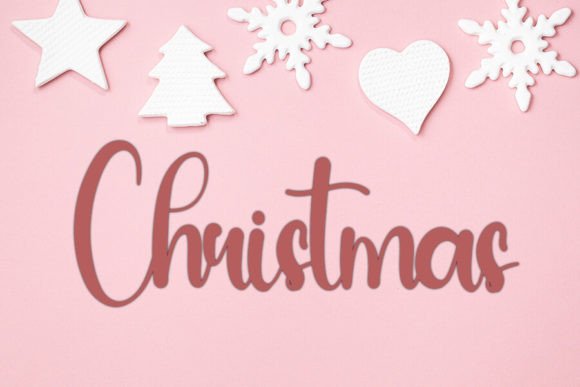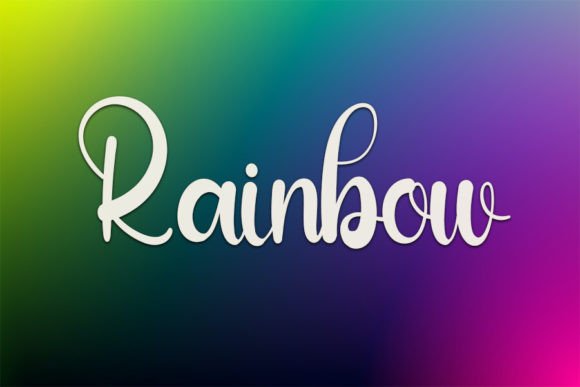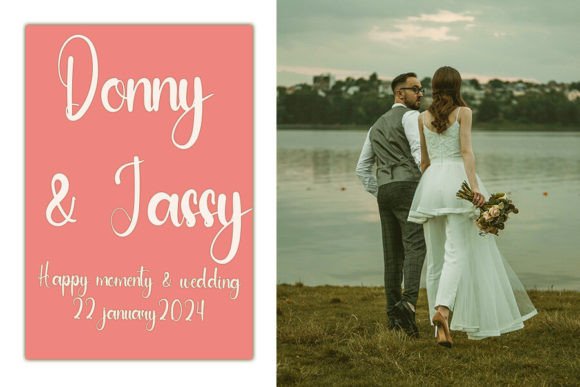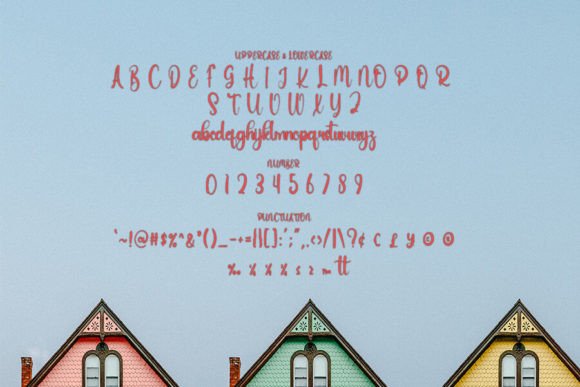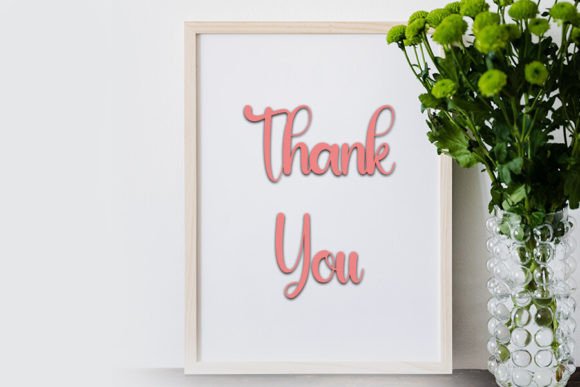
Introducing Contribution Font: Elevate Your Designs with Elegance
Are you on the hunt for a font that adds a touch of sophistication and elegance to your projects? Look no further than Contribution Font, a stunning handwritten font that is sure to capture your heart. With its unique and timeless style, Contribution Font is the perfect choice for designers and crafters looking to create spectacular designs that stand out from the crowd.
The Beauty of Contribution Font
Contribution Font is a neat and beautiful handwritten font that boasts an elegant touch, making it ideal for a wide range of projects. Whether you’re working on a logo, branding materials, social media graphics, or even a website, this font is sure to add a level of sophistication and refinement that will leave a lasting impression.
One of the standout features of Contribution Font is its incredibly distinct and timeless style. Unlike other fonts that may come and go, Contribution Font has a classic quality that will never go out of style. Its elegant lines and curves create a sense of movement and fluidity, making it perfect for designs that require a touch of personality and flair.
What Makes Contribution Font So Special?
So, what sets Contribution Font apart from other fonts on the market? Here are just a few reasons why this font is a must-have for designers and crafters:
- Unique and Timeless Style: Contribution Font has a one-of-a-kind style that is both elegant and refined. Its timeless quality ensures that your designs will never look dated or out of style.
- Elegant Touch: This font boasts an elegant touch that is perfect for designs that require a level of sophistication and refinement.
- Highly Versatile: Contribution Font is highly versatile and can be used for a wide range of projects, from logos and branding materials to social media graphics and websites.
- Easy to Read: Despite its elegant and refined style, Contribution Font is easy to read, making it perfect for designs that require a clear and concise message.
How to Use Contribution Font
Contribution Font is incredibly easy to use and can be incorporated into a wide range of designs. Here are just a few ideas to get you started:
- Logos and Branding Materials: Use Contribution Font to create stunning logos and branding materials that showcase your brand’s personality and style.
- Social Media Graphics: Add a touch of elegance and sophistication to your social media graphics with Contribution Font.
- Websites: Use Contribution Font to create a beautiful and refined website that showcases your brand’s personality and style.
- Stationery and Packaging: Add a touch of elegance and sophistication to your stationery and packaging with Contribution Font.
In conclusion, Contribution Font is a stunning handwritten font that is sure to elevate your designs to the next level. With its unique and timeless style, elegant touch, and high level of versatility, this font is perfect for designers and crafters looking to create spectacular designs that stand out from the crowd. So why wait? Fall in love with Contribution Font today and start creating designs that are truly unforgettable!